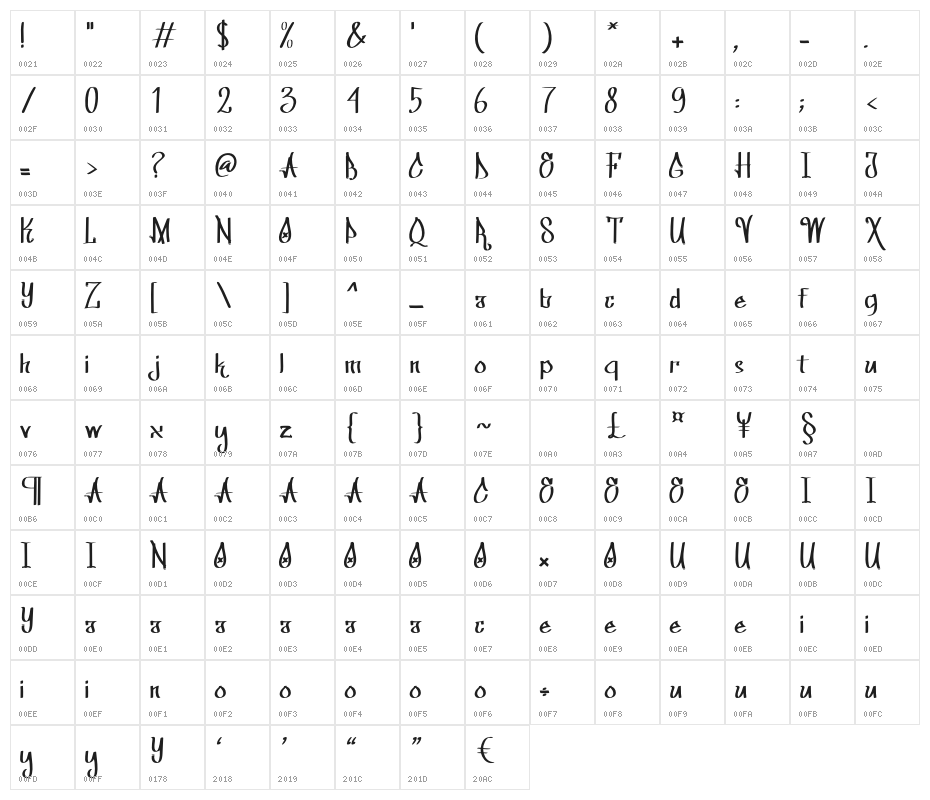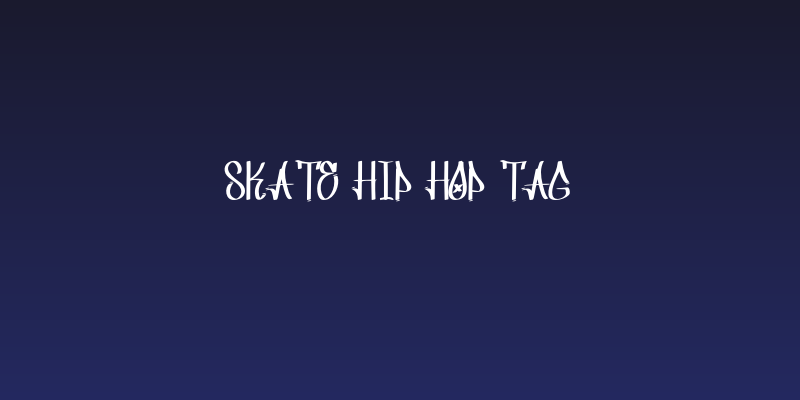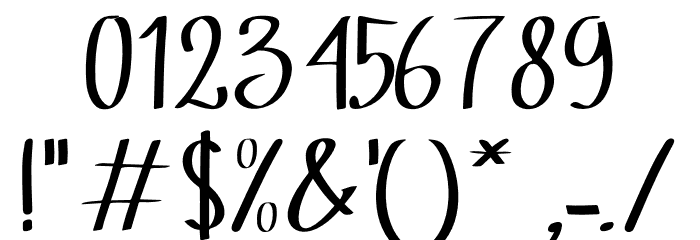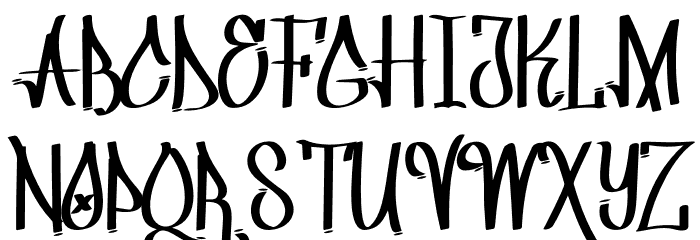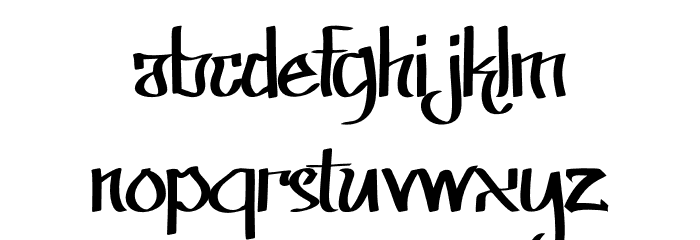
Skate Hip Hop Tag Font
Skate Hip Hop Tag Description
This font exudes a bold, urban vibe reminiscent of street art and graffiti. Its letters are dynamically styled, with sharp angles and exaggerated curves that create a sense of movement and energy. The uppercase letters are particularly striking, featuring unique embellishments and varying line thicknesses that add to its edgy aesthetic. The lowercase letters maintain this dynamic style, offering a cohesive look across the alphabet. Numbers and special characters are equally expressive, making this font versatile for creative projects. Its overall appearance is both rebellious and artistic, perfect for capturing attention.
| Overall Style | Urban, Graffiti, Edgy |
| Use Case | Logos, Posters, Headlines |
| Proposed Projects | Ideal for streetwear branding, music album covers, skateboarding event posters, and urban-themed designs. |